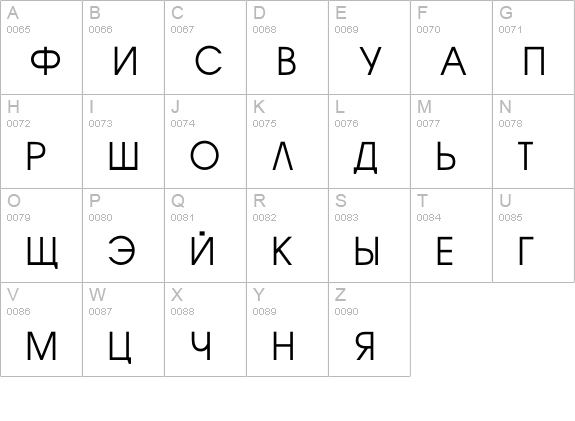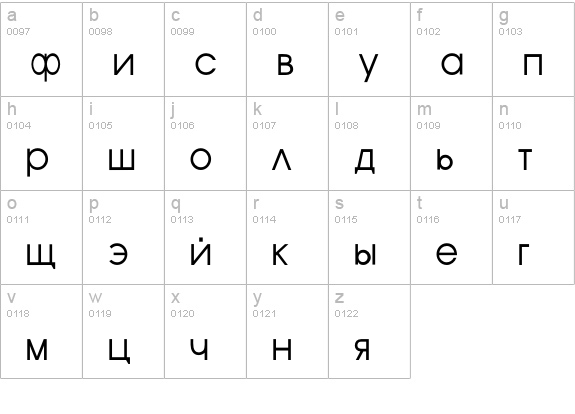
Korenski Font Details
Korenski font is a beautifully crafted typeface that exudes elegance and sophistication. Its sleek and modern design makes it perfect for a wide range of projects, from branding to editorial design. The clean lines and balanced proportions of Korenski font give any text a polished and professional look. What sets Korenski font apart is not just its aesthetic appeal, but also the fact that it is available for free. Yes, you read that right - this stunning font can be downloaded for free at FontsMarket.com. Whether you're a designer looking to add a new font to your collection or someone in need of a stylish typeface for a project, Korenski font is a fantastic choice. Don't miss out on this opportunity to enhance your work with this exceptional font. Download Korenski font today and elevate your designs to a whole new level.